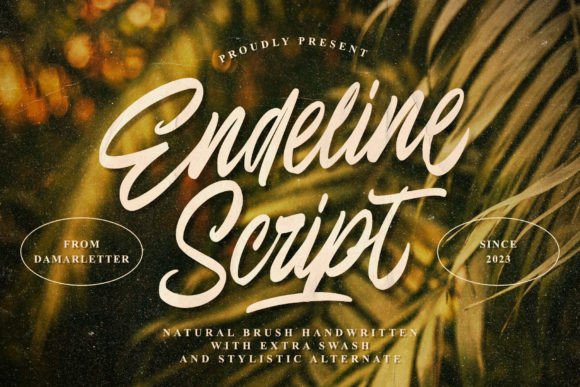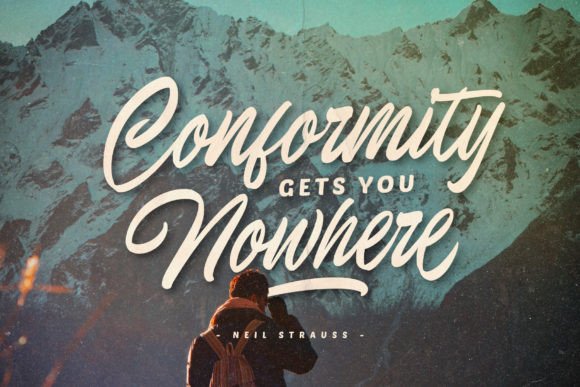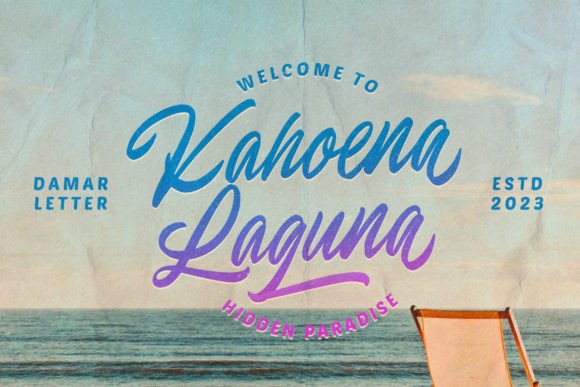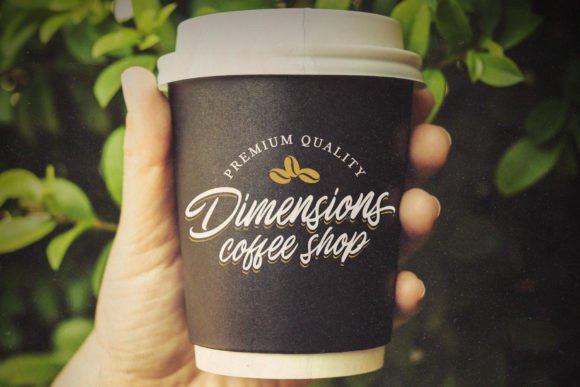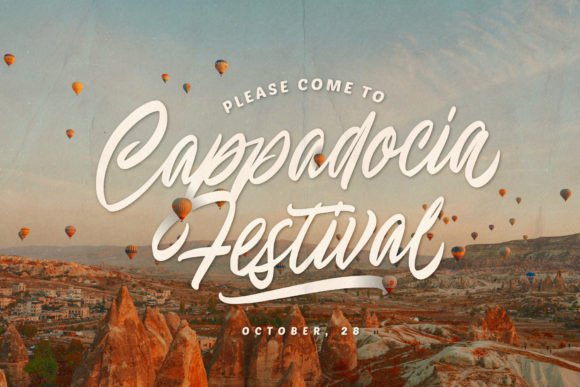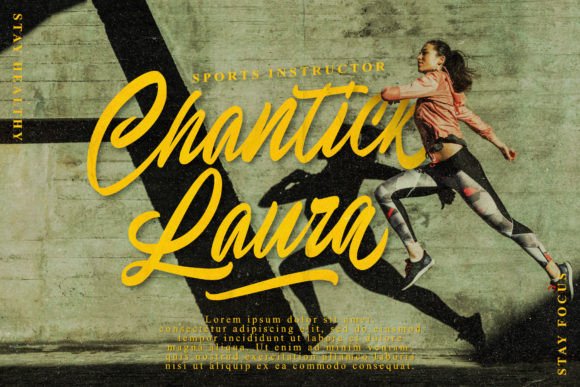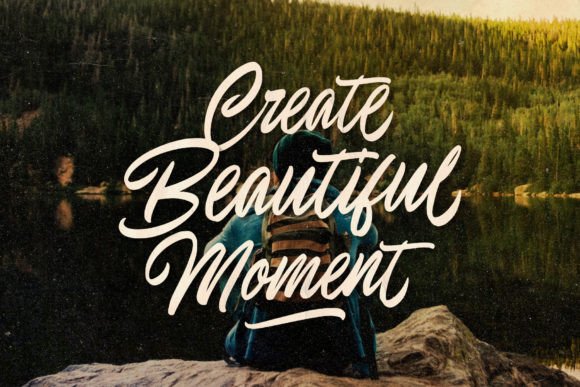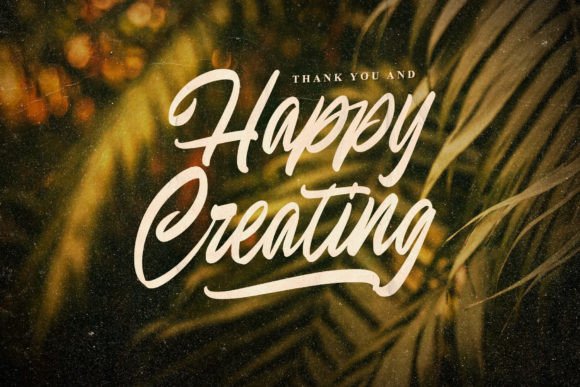
About Endeline Script
Endeline Script is a chic, refined script font. Whatever the topic, this font will be a wonderful asset to your font library, as it has the potential to enhance any creation. This font is PUA encoded which means you can access all the glyphs and swashes with ease!